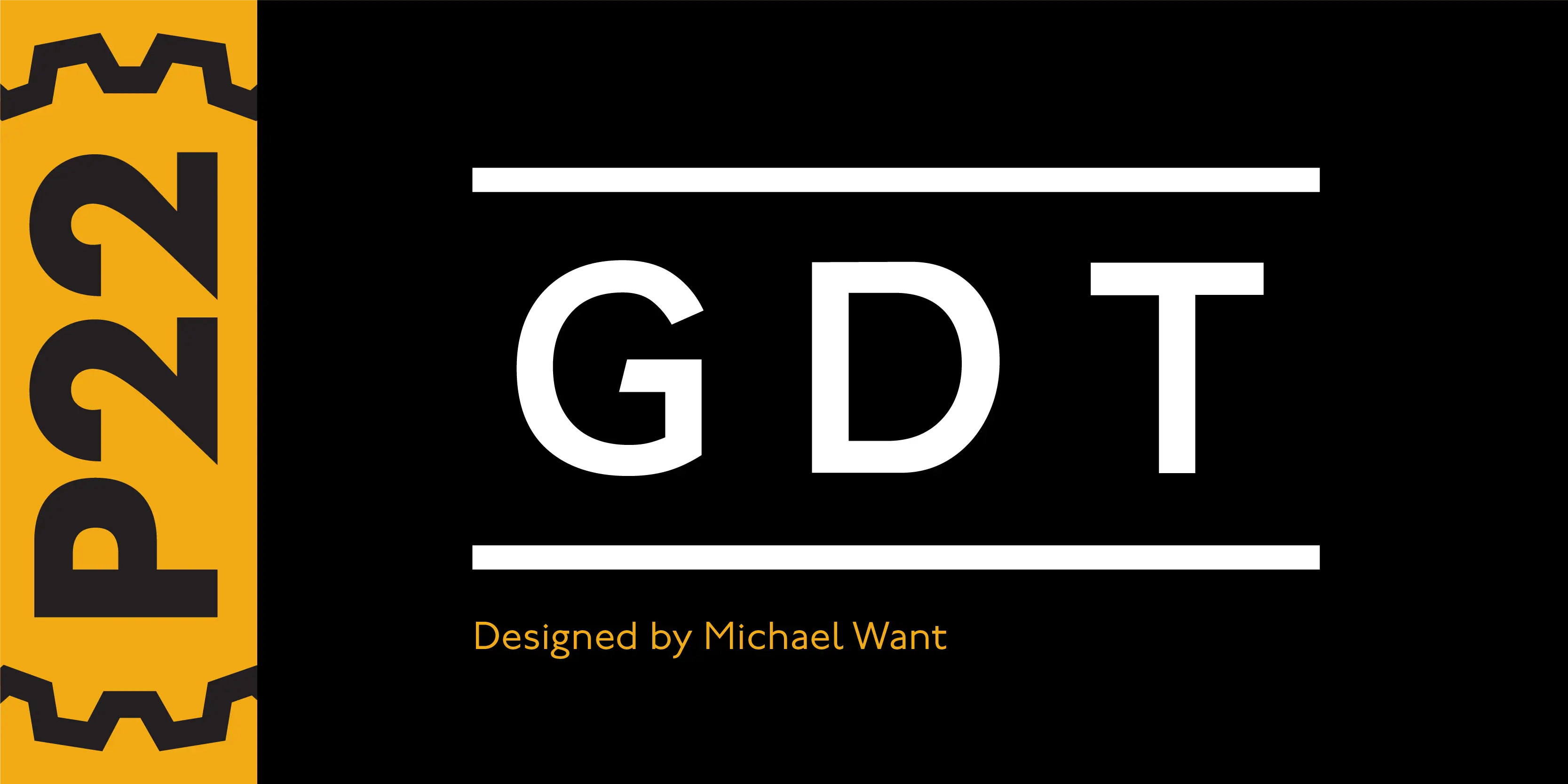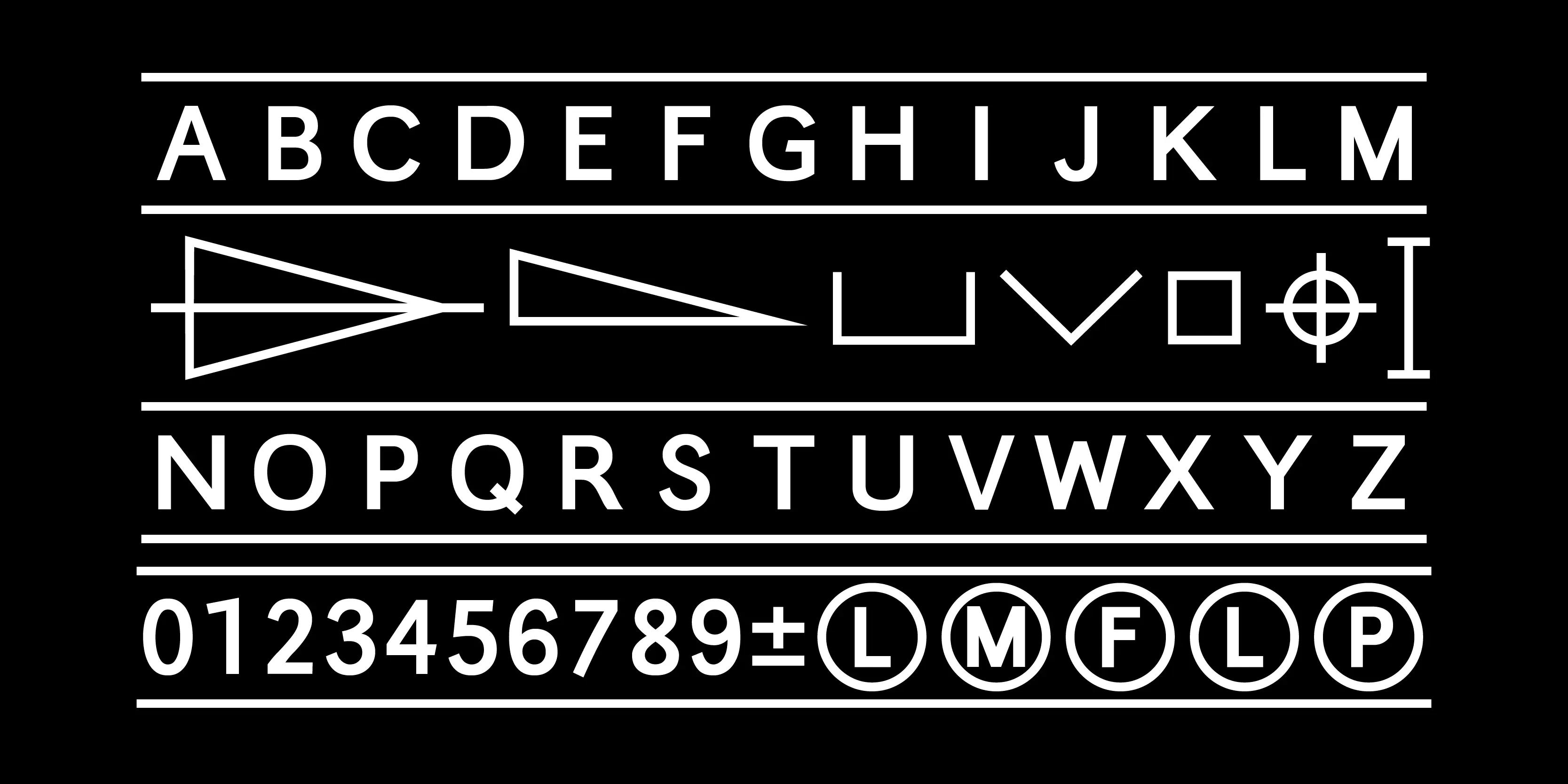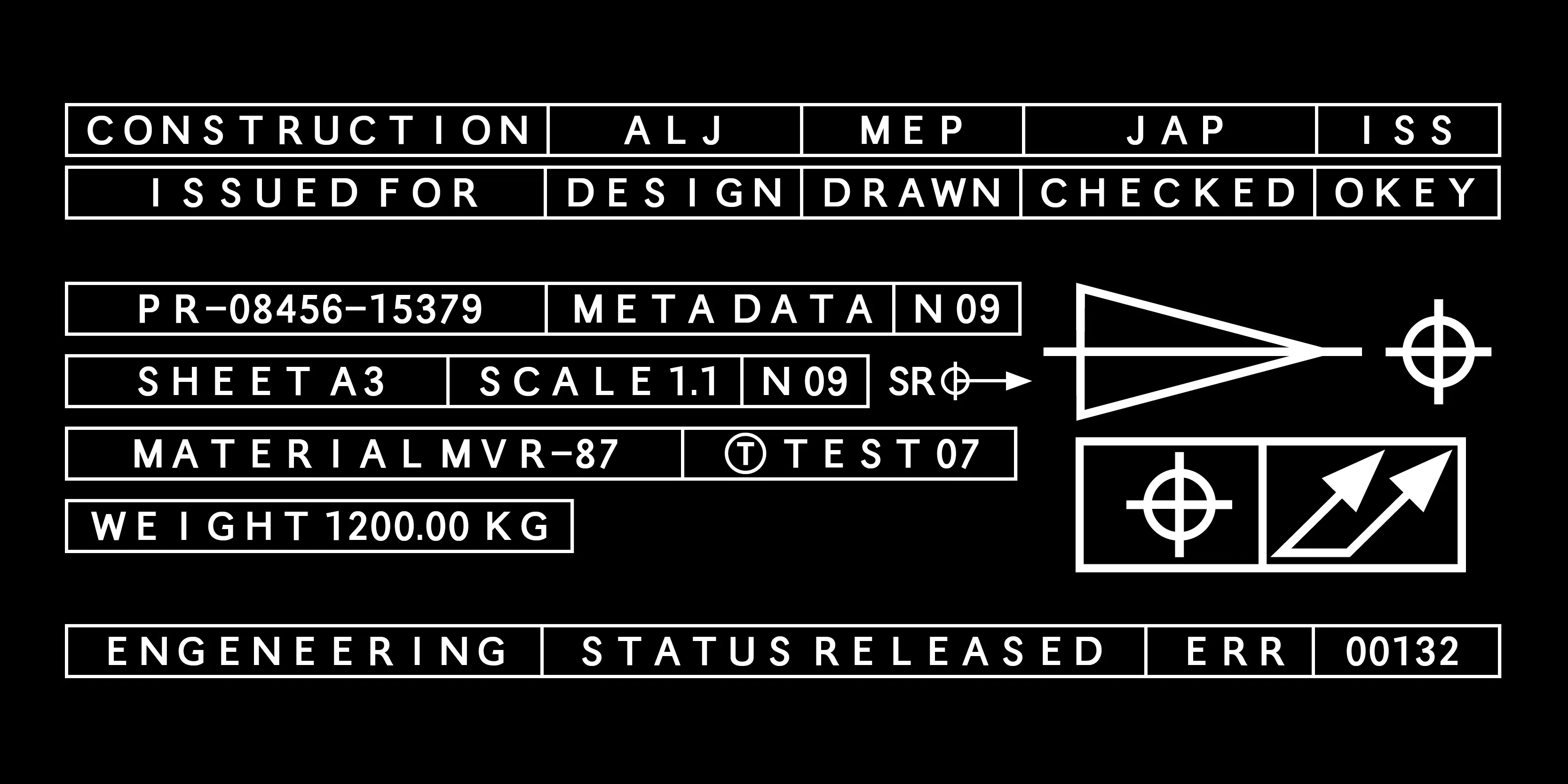
GDT
Geometric dimensioning and tolerancing (GD&T) is a system for defining and communicating engineering tolerances. It uses a symbolic language on engineering drawings and computer-generated three-dimensional solid models that explicitly describe nominal geometry and its allowable variation. This highly specialized symbol font is designed specifically to be used by engineers to describe CAD produced outside the CAD environment. Included is a chart featuring character names and keyboard placement. Complies with ASME Y14.5M-1994. Updated to include 2009 addition of ‘unilateral’ symbol.